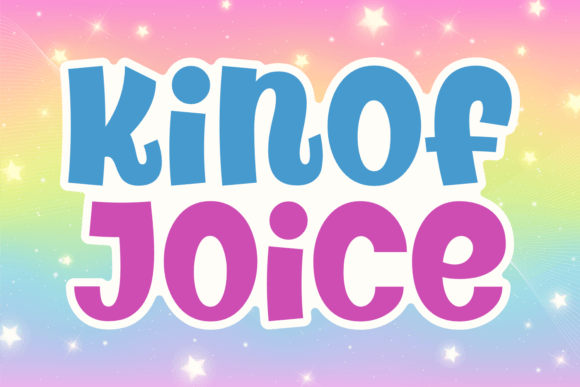
Discover Kinof Joice, the ultimate display font that bursts with personality, designed exclusively by the renowned font crafter, Dika from 7NTypes. This chunky and joyful font will captivate your audience and transform your designs into eye-catching masterpieces.
With Kinof Joice, you'll embark on a typographic journey like no other. The thick and charming characters will add a touch of whimsy and fun to your projects, making them stand out from the mundane and ordinary. Whether you need to create stunning posters that demand attention, eye-catching banners that leave a lasting impression, or t-shirts that speak volumes, Kinof Joice is your secret weapon.
Unleash your creativity and dive into the world of boundless design possibilities with Kinof Joice. Design captivating covers that draw eyes like magnets, craft titles that command attention, and create decorations that add a splash of delightful charm. The versatility of Kinof Joice knows no bounds. From quirky social media posts that resonate with your audience to inspiring quotes that uplift spirits, Kinof Joice is your go-to font for crafting unforgettable visuals.
Kinof Joice doesn't just elevate your designs; it sparks conversations, evokes emotions, and leaves a lasting impact. Its bold and playful nature will resonate with those seeking a unique and memorable font that speaks to their creative soul.